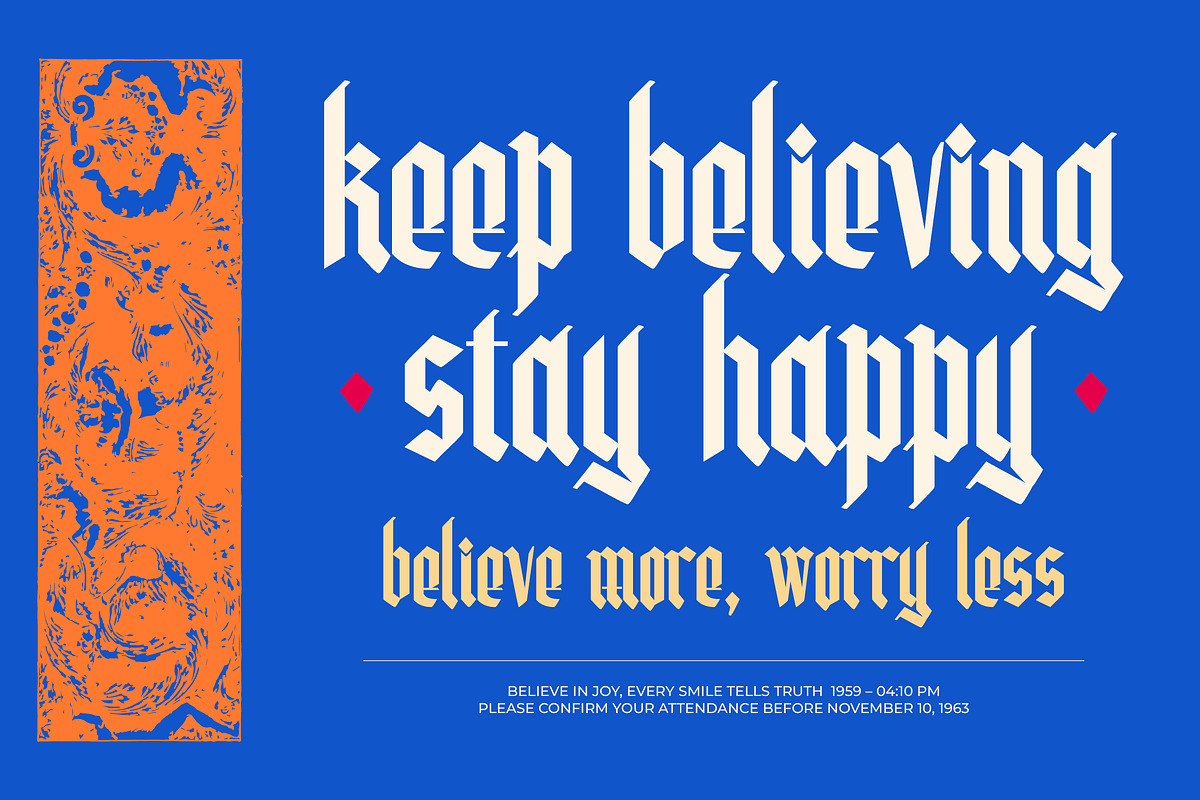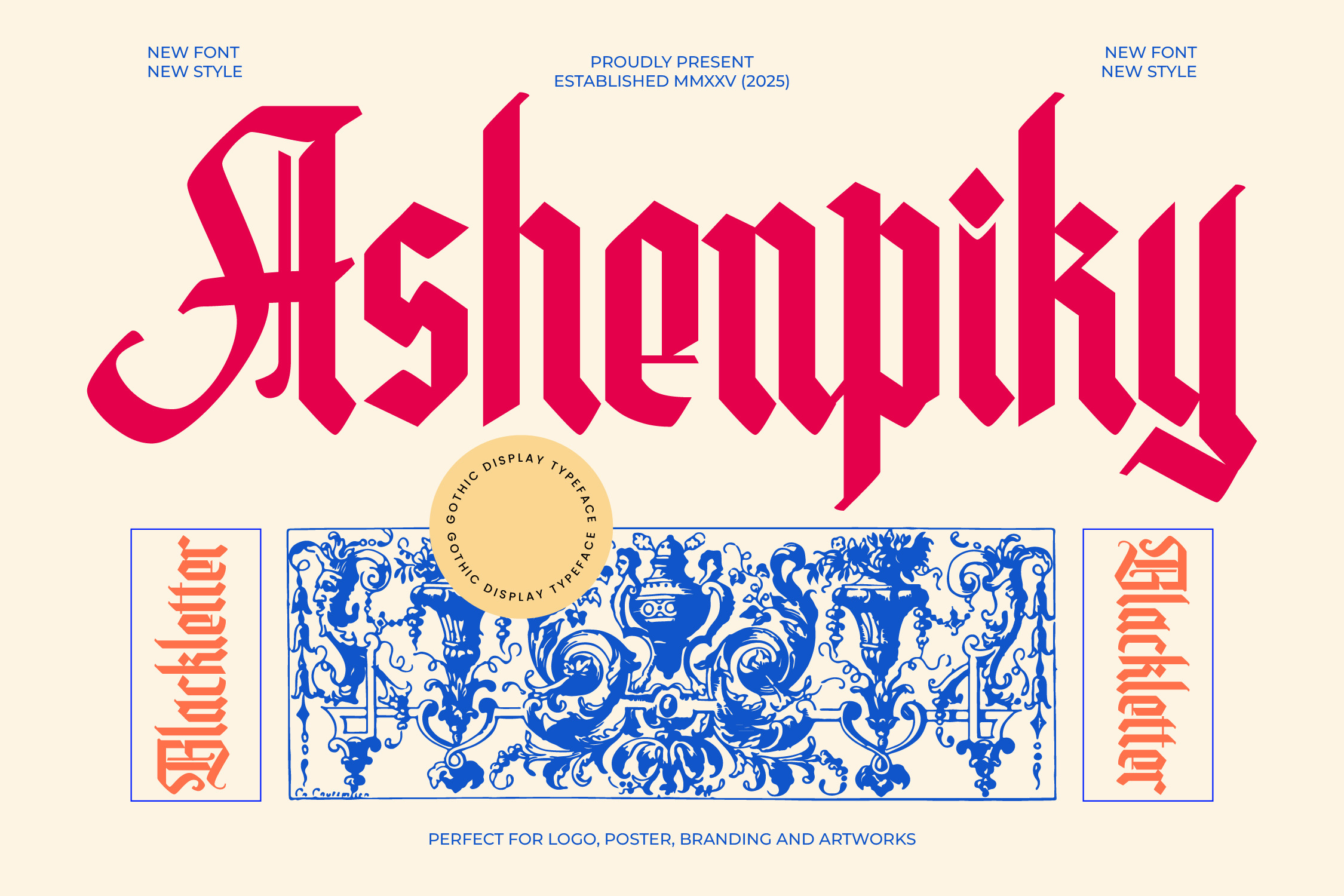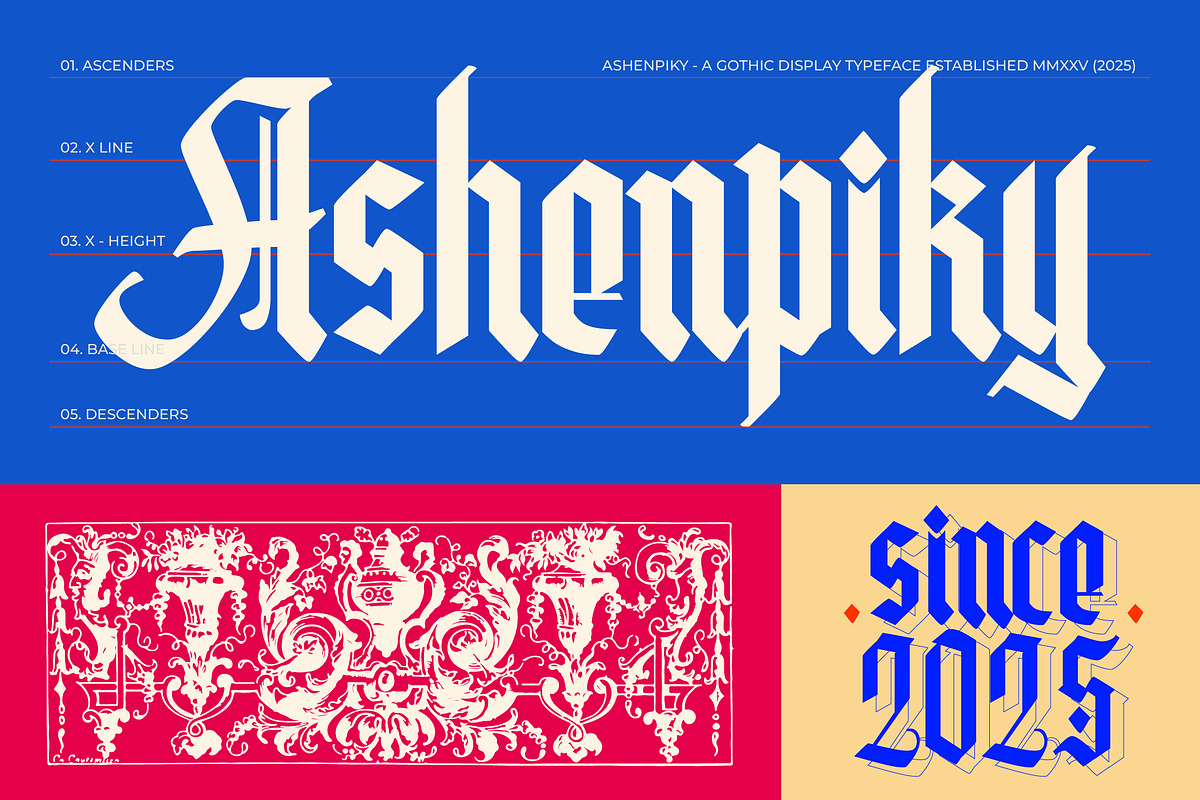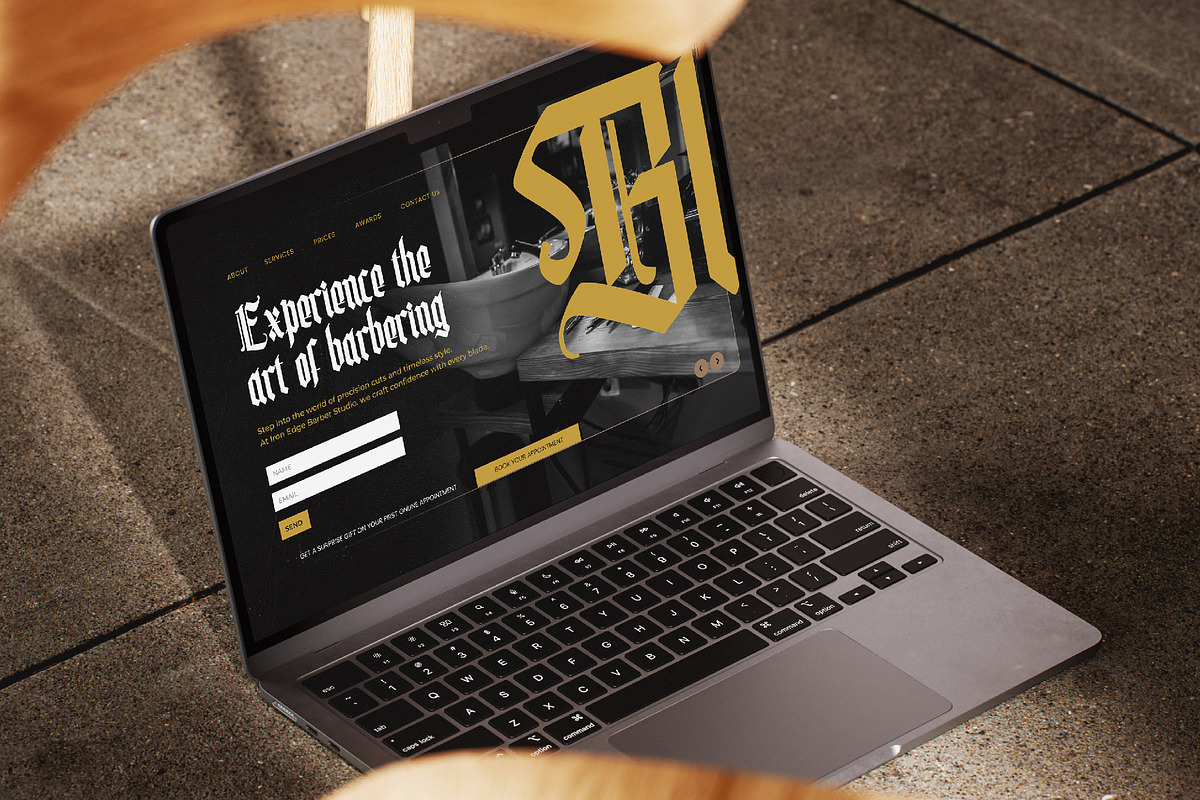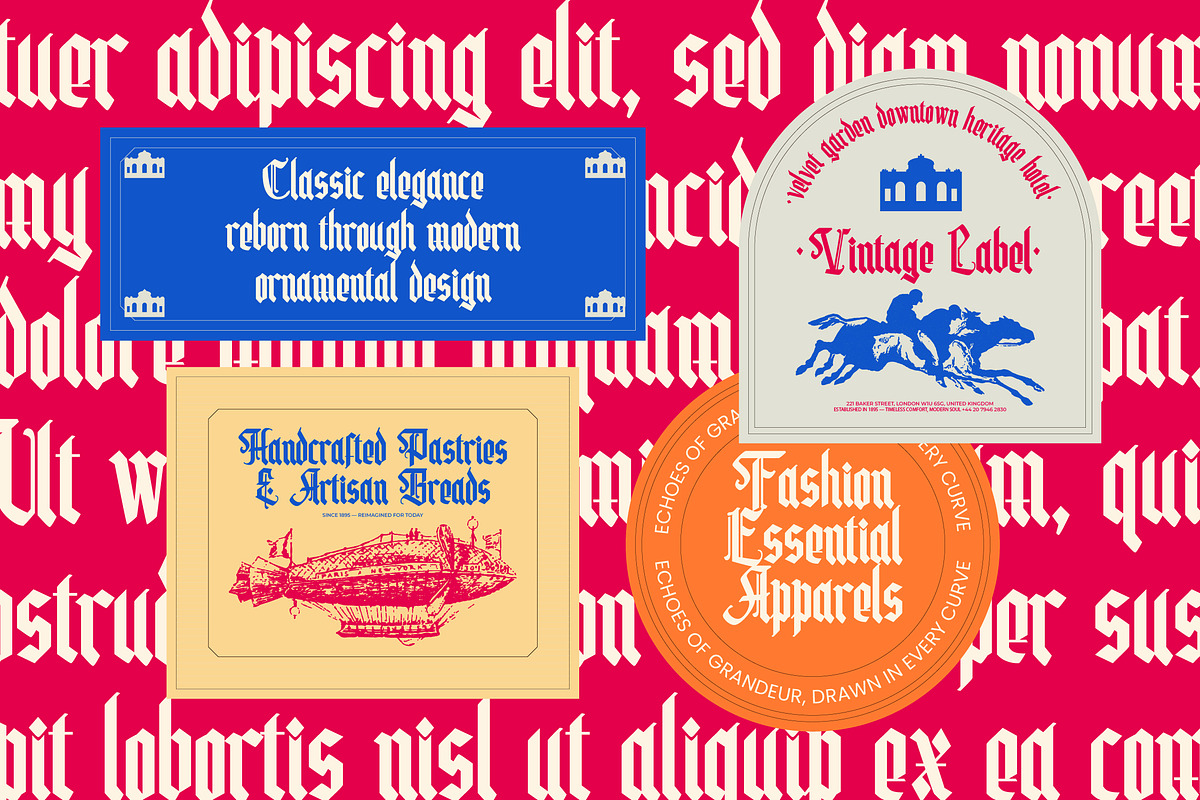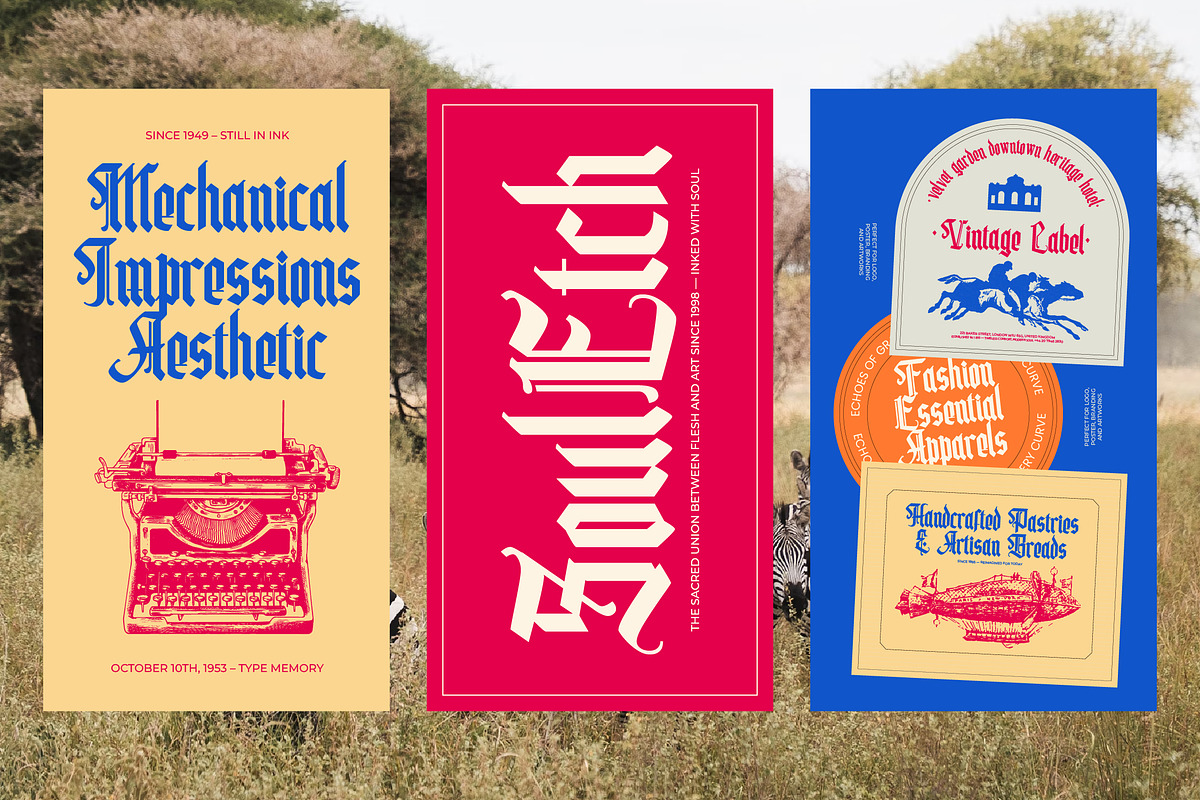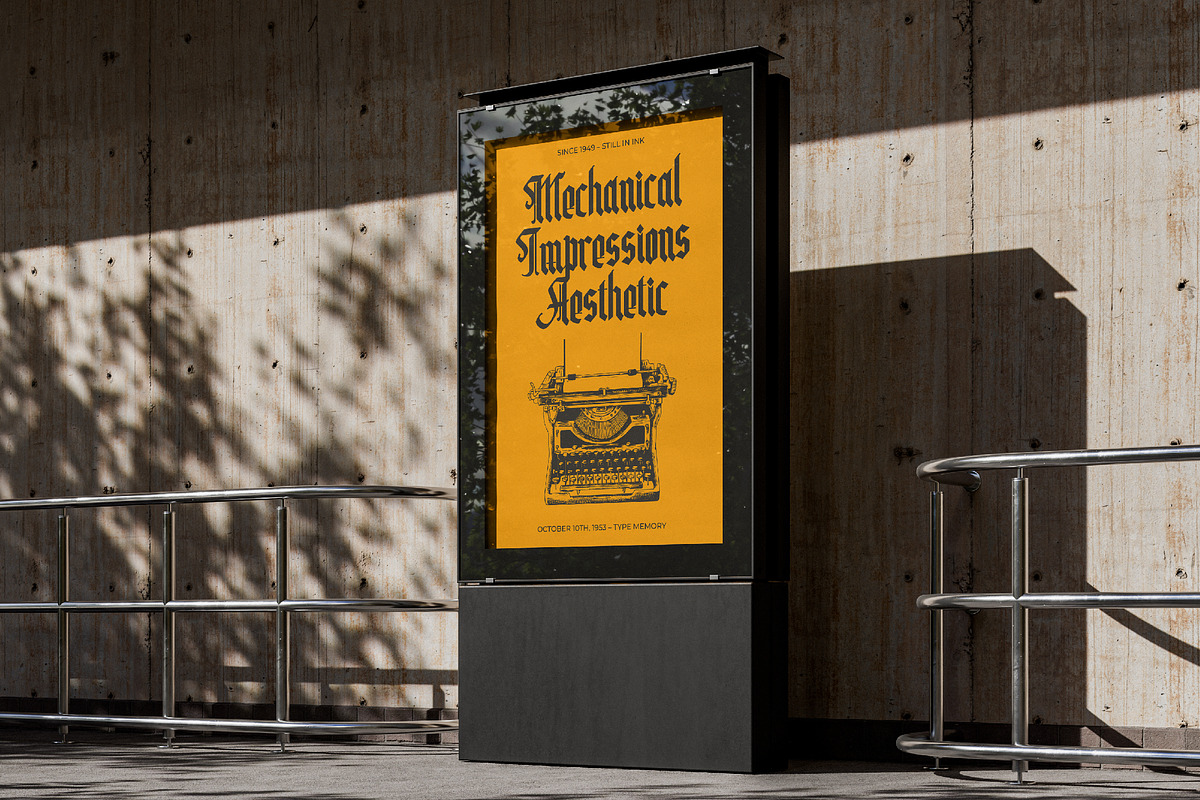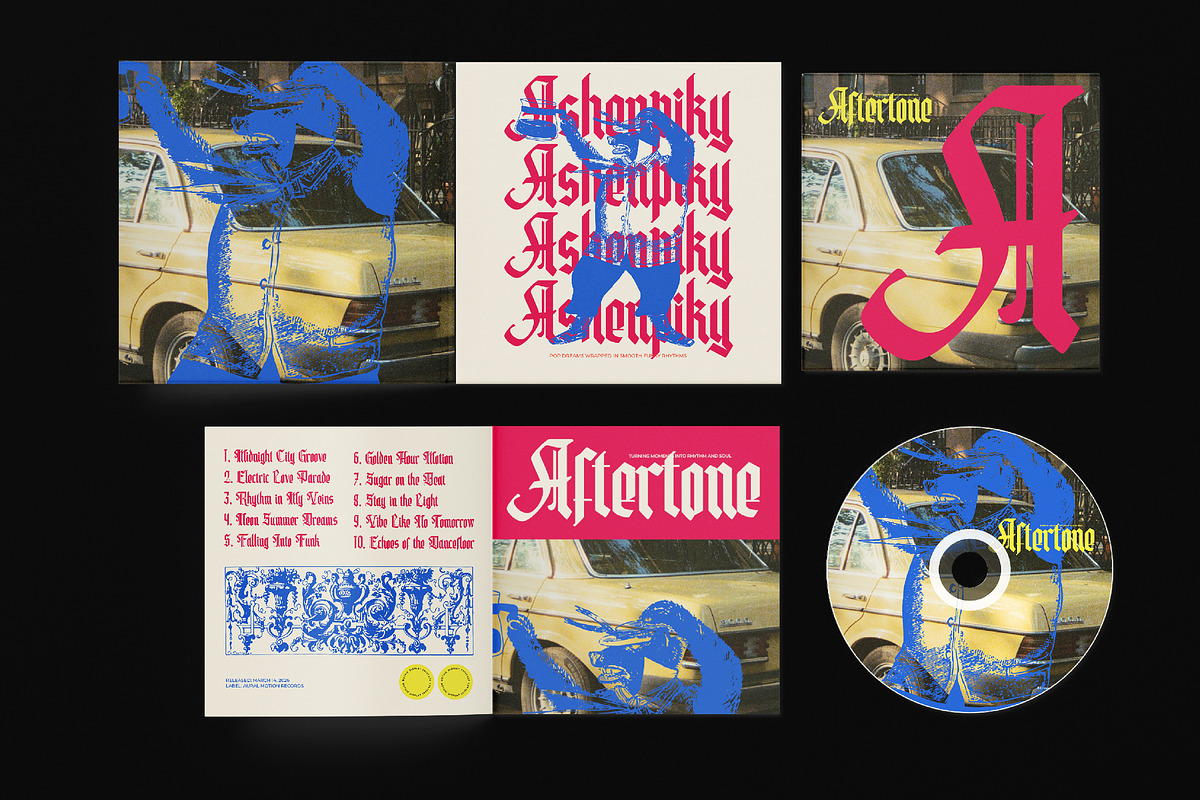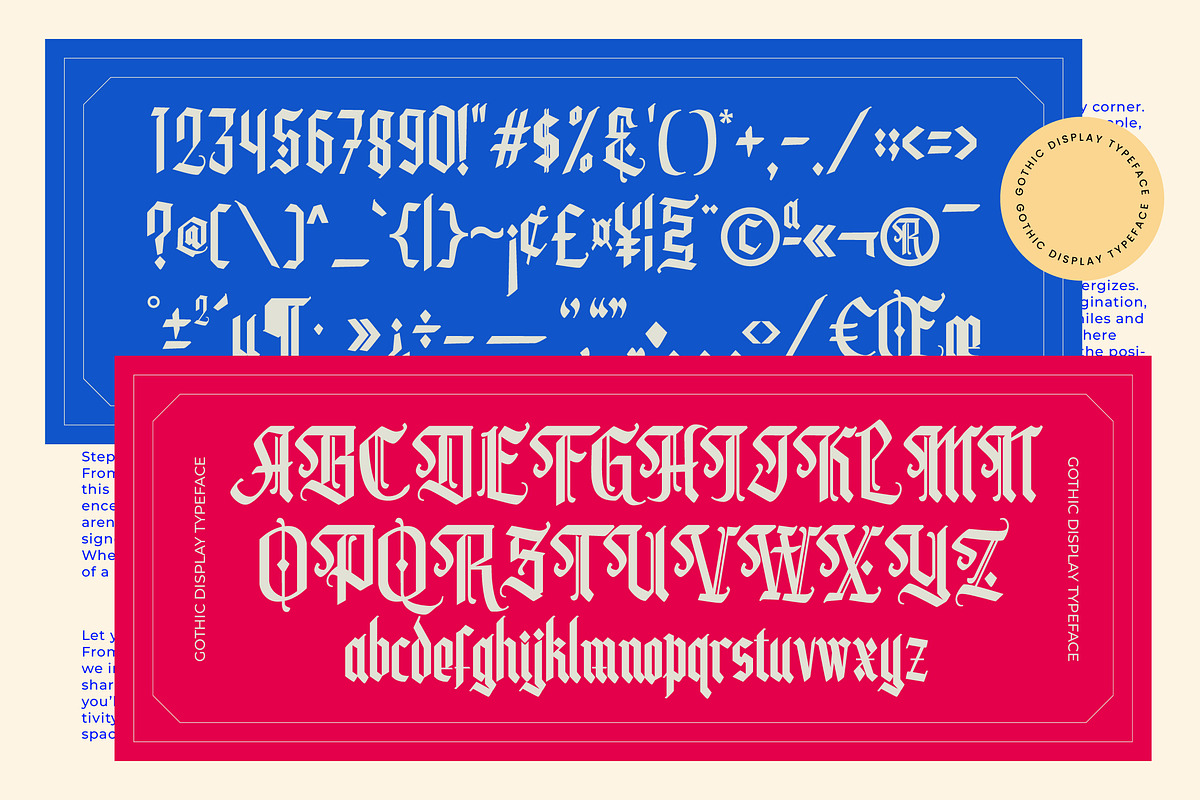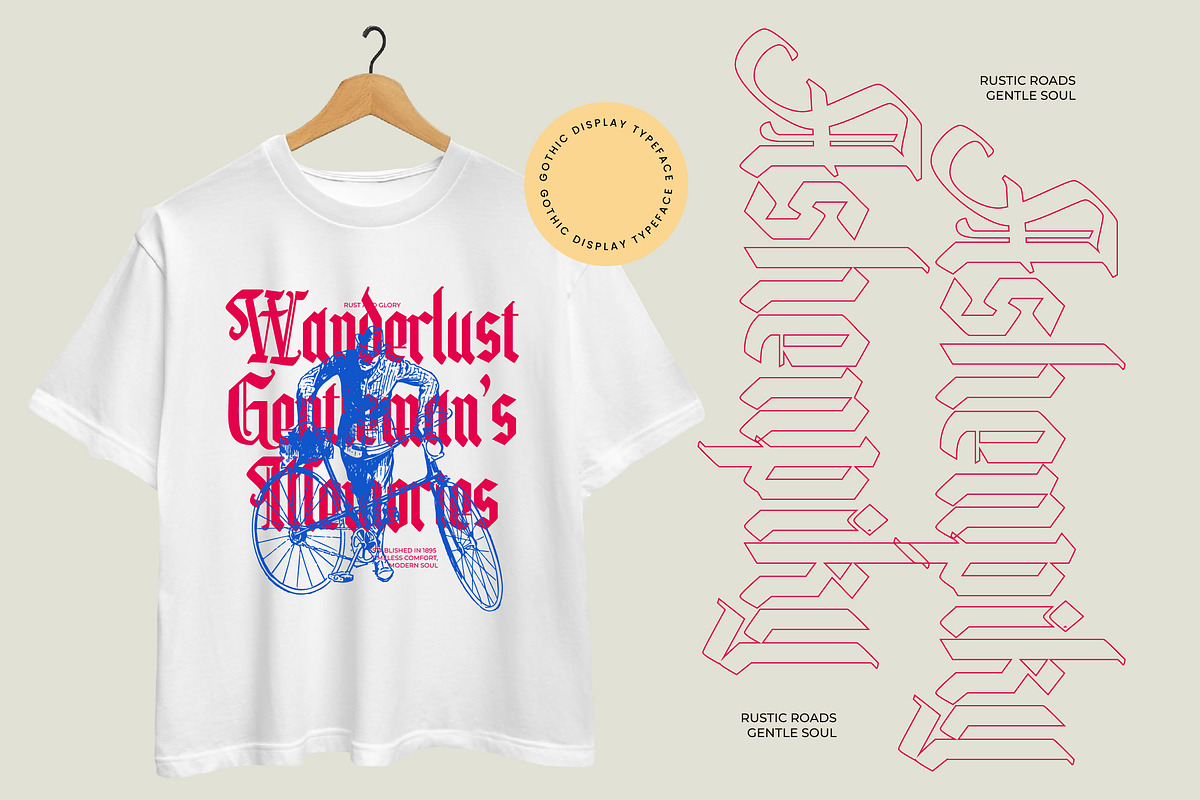
Ashenpiky Modern Blackletter Fonts
Ashenpiky Blackletter Serif Font
Ashenpiky serif font is a unique, modern serif font with a unique, elegant, modern, and elegant style. It is a sans-serif font perfect for branding projects, logos, social media posts, product packaging, labels, etc.